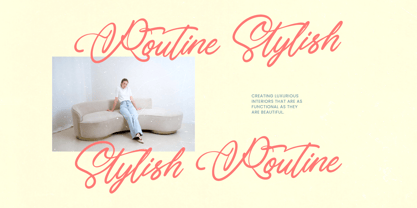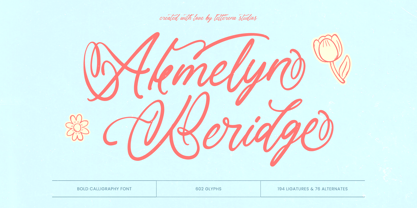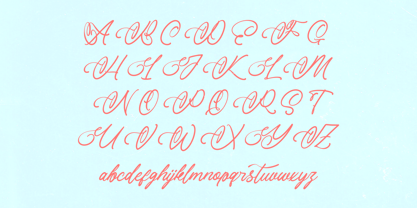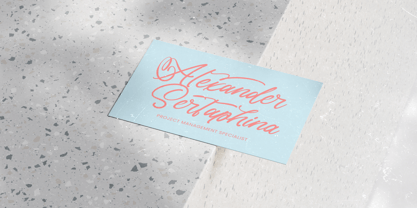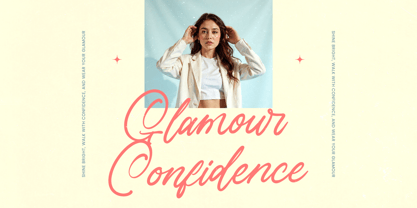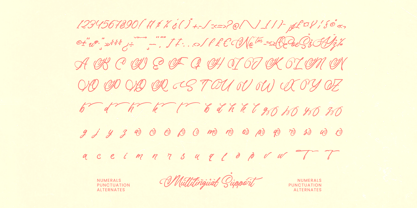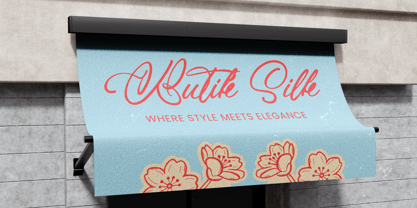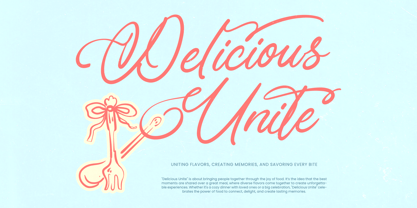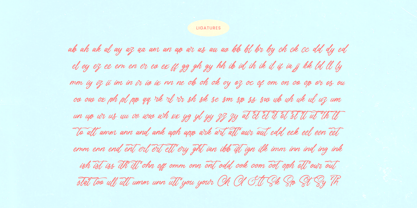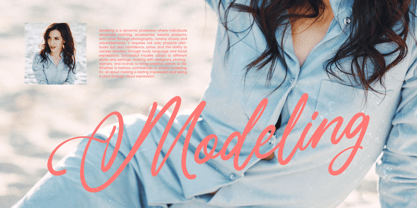
Akmelyn Beridge
by Letterena Studios
The Akmelyn Beridge Font Family was designed by Heru Utama Putra and published by Letterena Studios. Akmelyn Beridge contains 2 styles and family package options.
Akmelyn Beridge is a bold calligraphy font designed to express elegance, romance, and confident artistic flair. Featuring flowing curves, smooth stroke transitions, and beautifully crafted swashes, this typeface delivers a refined handwritten aesthetic with strong visual impact. Perfect for wedding invitations, luxury branding, beauty packaging, fashion editorials, logos, and premium social media content, Akmelyn Beridge brings timeless sophistication to any creative project. With 602 glyphs, 194 ligatures, and 76 alternates, it offers extensive typographic flexibility for seamless connections and distinctive stylistic variations. Whether used for statement headlines or delicate branding details, this font adds graceful movement and luxurious charm to both print and digital designs.